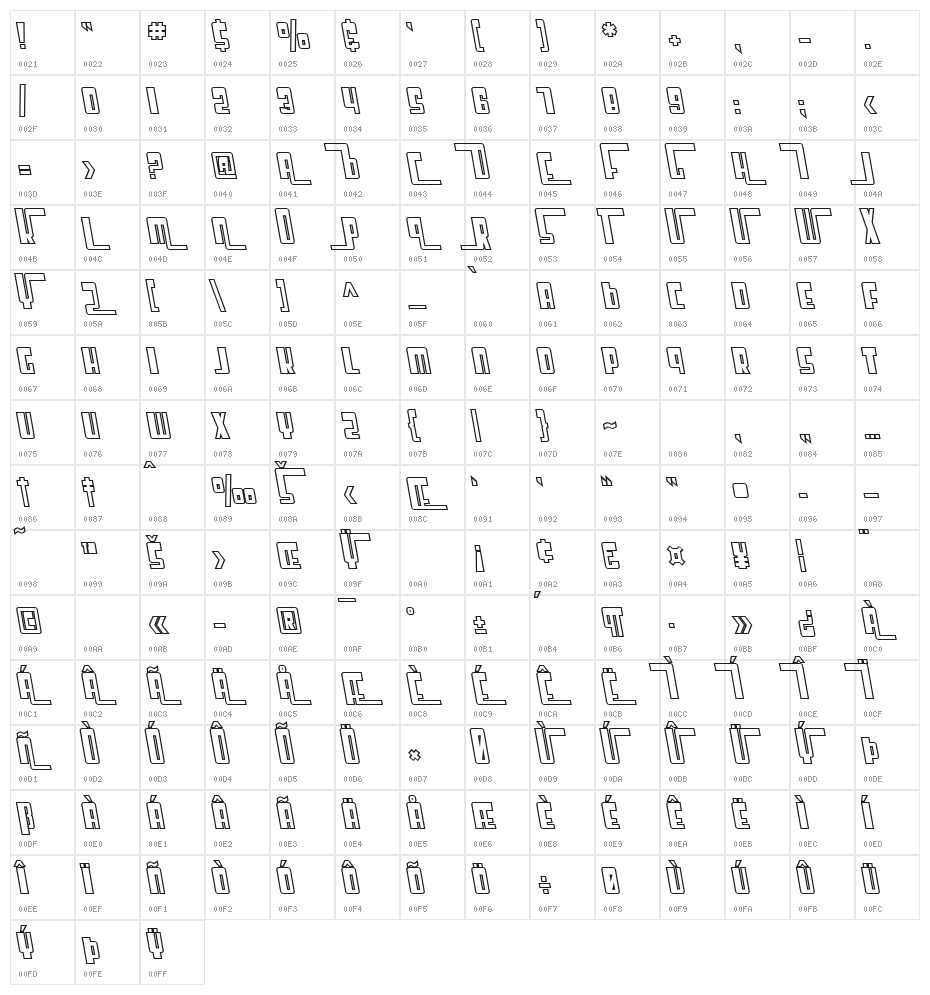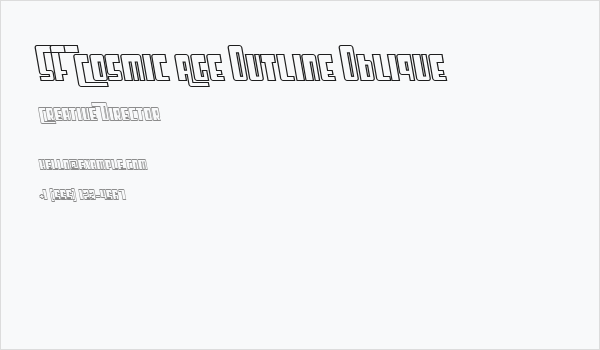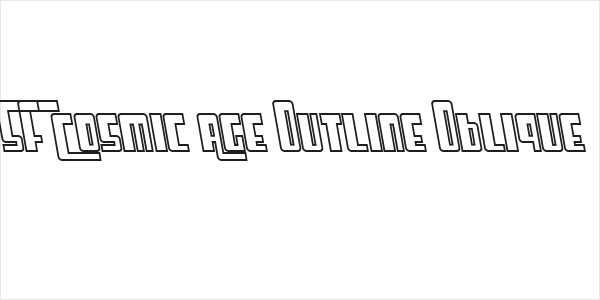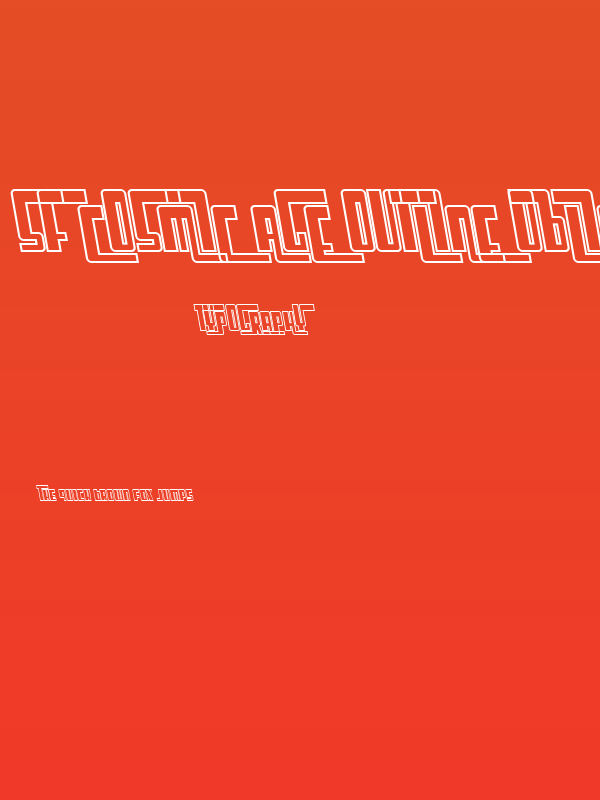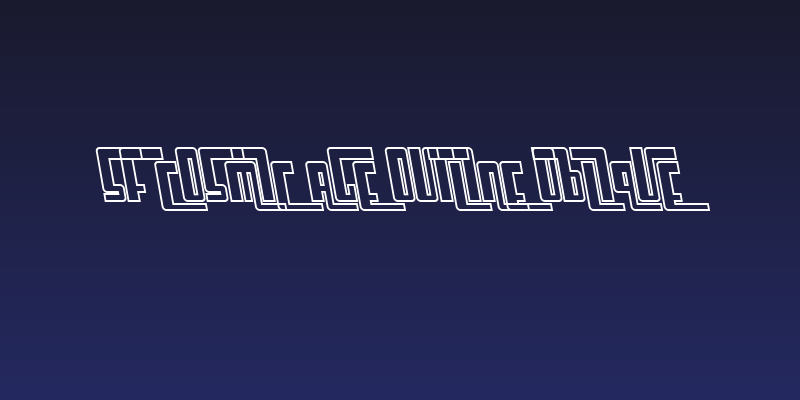
SF Cosmic Age Outline Oblique Font
SF Cosmic Age Outline Oblique Description
This font features a futuristic and bold outline style with an oblique slant, giving it a dynamic and modern appearance. The characters are constructed with a consistent line thickness, creating a cohesive and structured look. The uppercase and lowercase letters maintain a uniform height, enhancing readability while providing a unique aesthetic. The numbers and special characters are designed to match the overall style, ensuring versatility across various applications. The font's geometric shapes and clean lines make it suitable for projects that require a contemporary and eye-catching design.
| Proposed Projects | Ideal for sci-fi themed posters, modern branding, video game titles, and tech-related designs. |